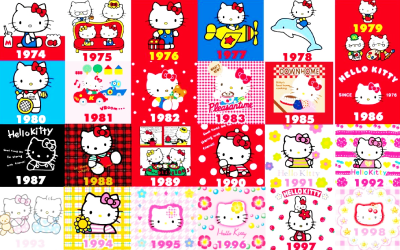
Hello Kitty Font
The Hello Kitty font is the name of the typeface used in the Hello Kitty brand logo. It is a cute and playful font that perfectly reflects the adorable character of Hello Kitty.
Hello Kitty Logo and Icon
Hello Kitty has millions of fans worldwide who adore this cute cat that symbolizes friendship, kindness, and cuteness. You can find Hello Kitty on various products such as stationery, clothes, toys, games, and movies.
Hello Kitty Cartoon
The Hello Kitty logo font is widely recognized and adored by fans globally. It has become an iconic symbol of the Hello Kitty brand, bringing joy and happiness to people. The logo consists of two parts: “Hello” and “Kitty” in a beautiful script font. Over the years, the logo has undergone changes while maintaining a simple and elegant appearance.
Similar Fonts to Hello Kitty
There are a number of similar fonts to Hello Kitty that you can use for your own projects. Some of these fonts include
Chick-fool-A Font
This font is a custom font that was created for the restaurant chain Chick-fil-A. It is very similar to the Hello Kitty font in terms of its overall appearance.
Hello Kitty Title Logo vs Similar Font Chick fool a
Chicken Hut Font
Veronica Script Font
A beautiful and elegant handwritten font that matches the Hello Kitty title logo. Veronica Script is a freeware font characterized by its flowing lines and delicate curves.
Absolut Pro Bold Font
This font is reminiscent of the 1997 Hello Kitty logo title design. It is part of the Absolut Pro font family, known for its bold and impactful appearance, making it perfect for headlines, titles, and attention-grabbing text.
Janda Happy Day Font
Hello Kitty Font Characters View
A delightful and playful typeface that many Hello Kitty-related designs use for its party-like appearance. Janda Happy Day is free for personal use and is sure to bring a smile to your audience.
Odin Bold
This font is matched with the Hello Kitty logo title lettering from 1986. The Odin Bold font is a sans-serif typeface that is bold and impactful. It is designed by an anonymous foundry and is available for personal use only.
In conclusion, the Hello Kitty font is a beloved and adorable typeface used in the Hello Kitty brand logo. It captures the cute and playful essence of the famous Japanese cartoon character. The font has become an iconic symbol of the Hello Kitty brand, bringing joy to millions of fans worldwide. Overall, the Hello Kitty font is a charming and versatile choice for various design projects.